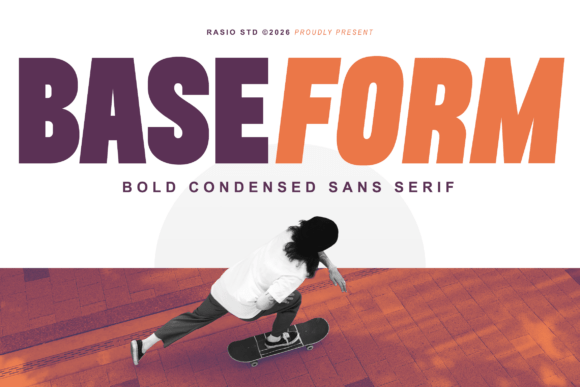
The Perfect Canvas for Your Creative Vision
Have you ever stared at a blank page, struggling to find the perfect font to bring your idea to life? You know the feeling – a spark of creativity, a flash of inspiration, and suddenly you’re on the hunt for the perfect tool to make it happen. For designers, finding that elusive font can be a game-changer.
Enter the Baseform Font, a bold and confident sans serif display typeface designed to make a statement. With its compact letterforms, tight spacing, and distinctive ligatures, Baseform is the perfect choice for anything from bold branding systems to streetwear labels, sports graphics, and modern editorials.
What sets Baseform apart is its unique ability to create a solid, impactful rhythm across headlines and large typography. Whether you’re working on a high-energy campaign or a sleek packaging design, Baseform Font is the ultimate partner for designers looking to make a lasting impression.
Baseform Font Key Features
- Unique Characteristics: Baseform Font features a distinctive, modern design with clean lines and geometric shapes, making it perfect for contemporary and minimalist designs.
- Language Support: The font includes support for multiple languages, including Latin, Cyrillic, and Greek scripts, making it suitable for global applications.
- Font Weight: The font comes in light, regular, and bold weights, providing flexibility for various design applications.
Baseform Font Review
As a designer, I was excited to try out the Baseform Font and see how it would perform in my projects. Here’s my honest review.
- The Baseform Font has a unique and modern design that can add a touch of elegance to any project.
- It has a wide range of weights and styles, making it easy to use in different contexts.
- The font is highly legible, even at small sizes, which is a must for any font.
- It supports multiple languages, making it a great choice for projects that require multilingual support.
- The font may be too minimalist for some projects, which could make it difficult to read in certain contexts.
- The font family is relatively new, which means it may not be supported by older browsers or systems.
- Some characters may not be available in all languages, which could limit its use in certain projects.
Overall, I would say that the Baseform Font is a solid choice for designers who want a modern and elegant font for their projects. While it has some limitations, it’s definitely worth considering for the right project.
Tips for Getting the Most Out of Baseform Font
Here are some tips to help you get the most out of Baseform Font:
- Use it for headings and titles to add a touch of elegance.
- Combine Baseform Font with other fonts to create a unique and eye-catching look.
Baseform Font is perfect for:
- Photography captions and quotes.
Alternatives to Baseform Font
Montserrat is a popular sans-serif font that works well for digital and print materials. It’s ideal for use in headlines and body text where a clean, modern look is desired. Montserrat is more condensed than Baseform Font, making it perfect for use in smaller spaces or for those who want a more streamlined look.
Inter is a modern sans-serif font designed for digital use. It’s highly legible and versatile, making it suitable for a wide range of applications, from body text to headlines. Inter has a slightly more geometric look than Baseform Font, giving it a more contemporary feel.
Open Sans is a clean and modern sans-serif font that’s highly legible in both print and digital formats. It’s ideal for use in body text and works well in combination with other fonts. Open Sans has a slightly more rounded look than Baseform Font, making it perfect for use in longer blocks of text.